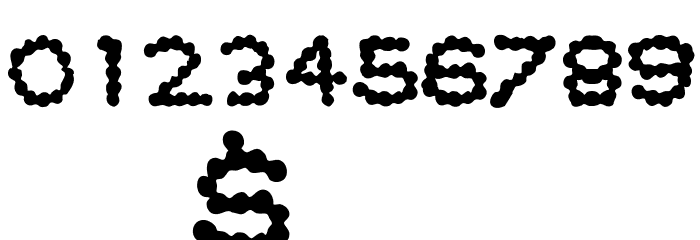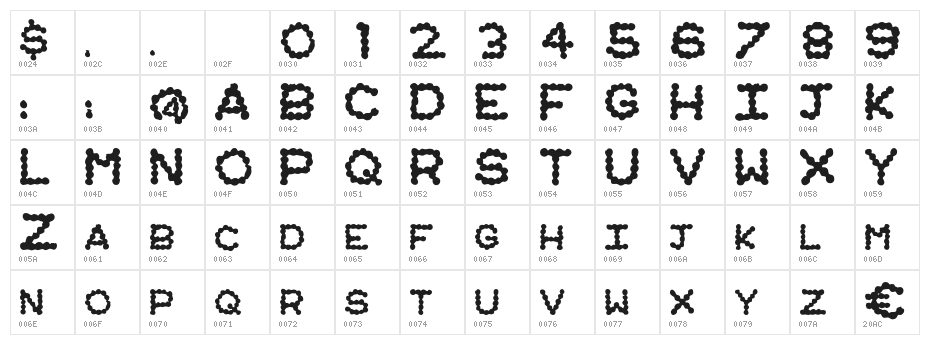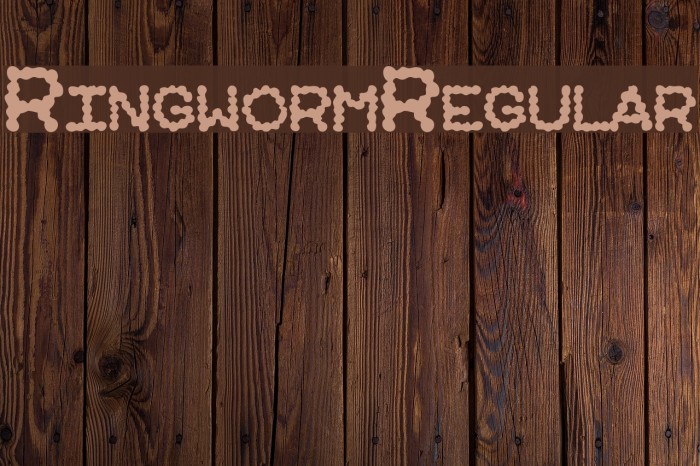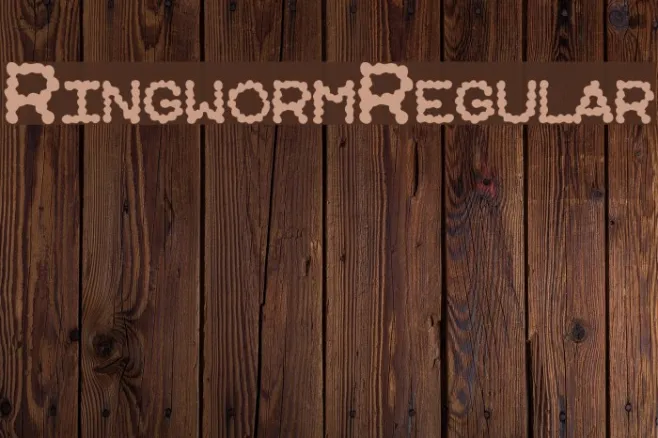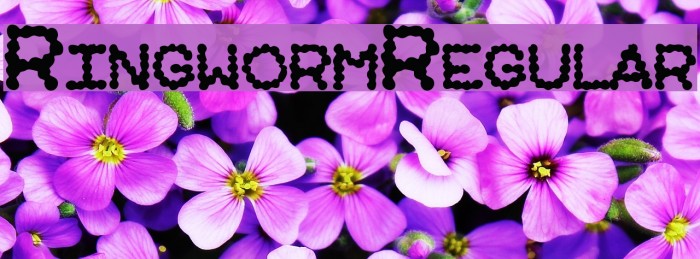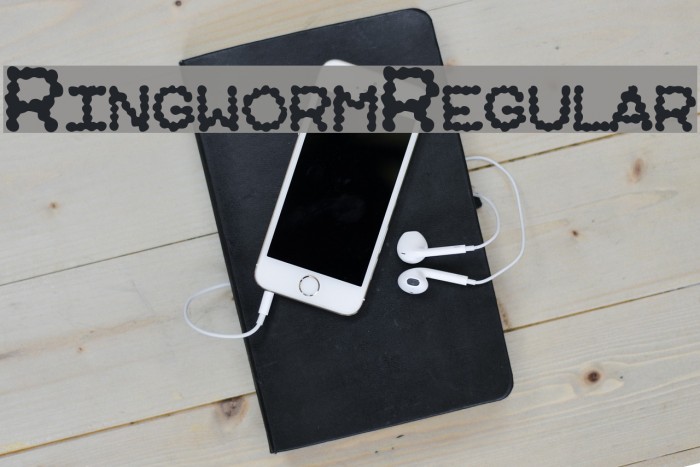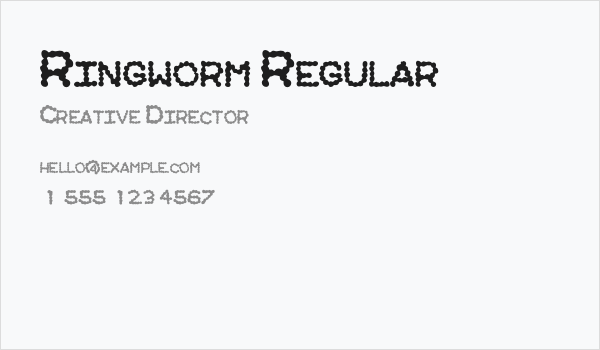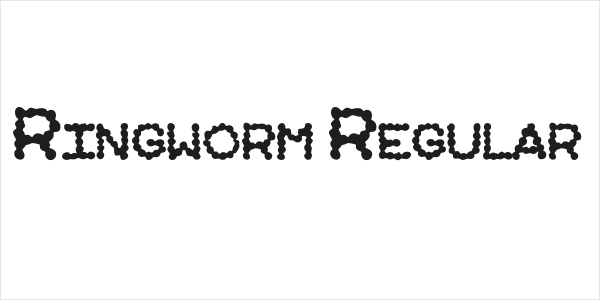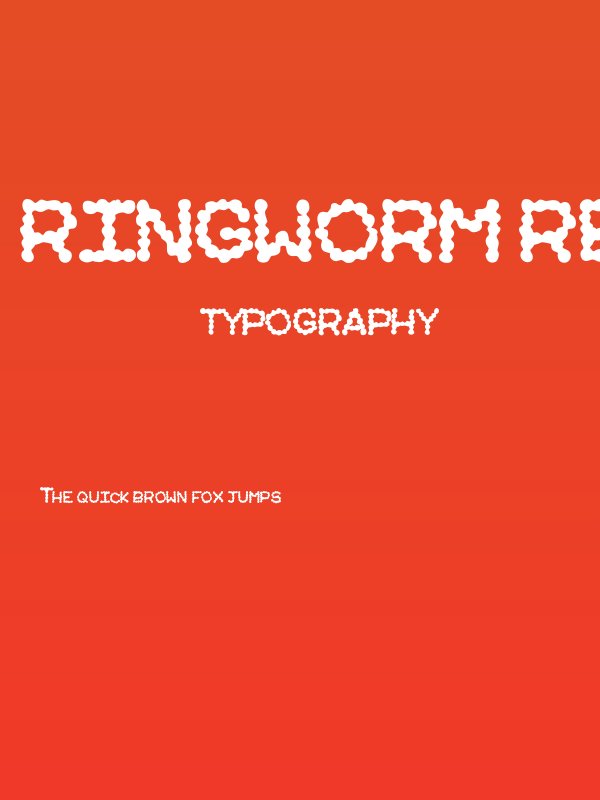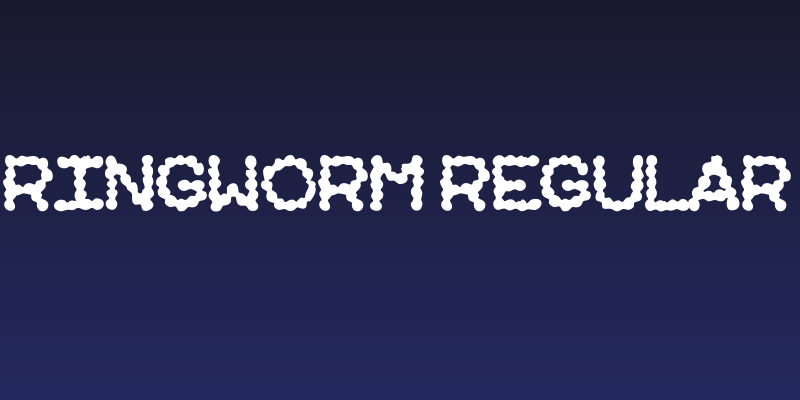
Ringworm-Regular Font
Ringworm-Regular Description
This font features a unique and playful design, characterized by its bubble-like, interconnected circles forming each letter and number. The style is bold and eye-catching, making it ideal for creative and informal applications. The letters are evenly spaced with a consistent thickness throughout, giving it a cohesive and uniform appearance. The font's whimsical nature makes it suitable for projects that require a fun and engaging visual element. Its distinct style ensures that it stands out, making it perfect for attention-grabbing headlines or artistic designs.
Overall StylePlayful, Whimsical
Proposed ProjectsPerfect for children's books, playful branding, party invitations, and creative posters.